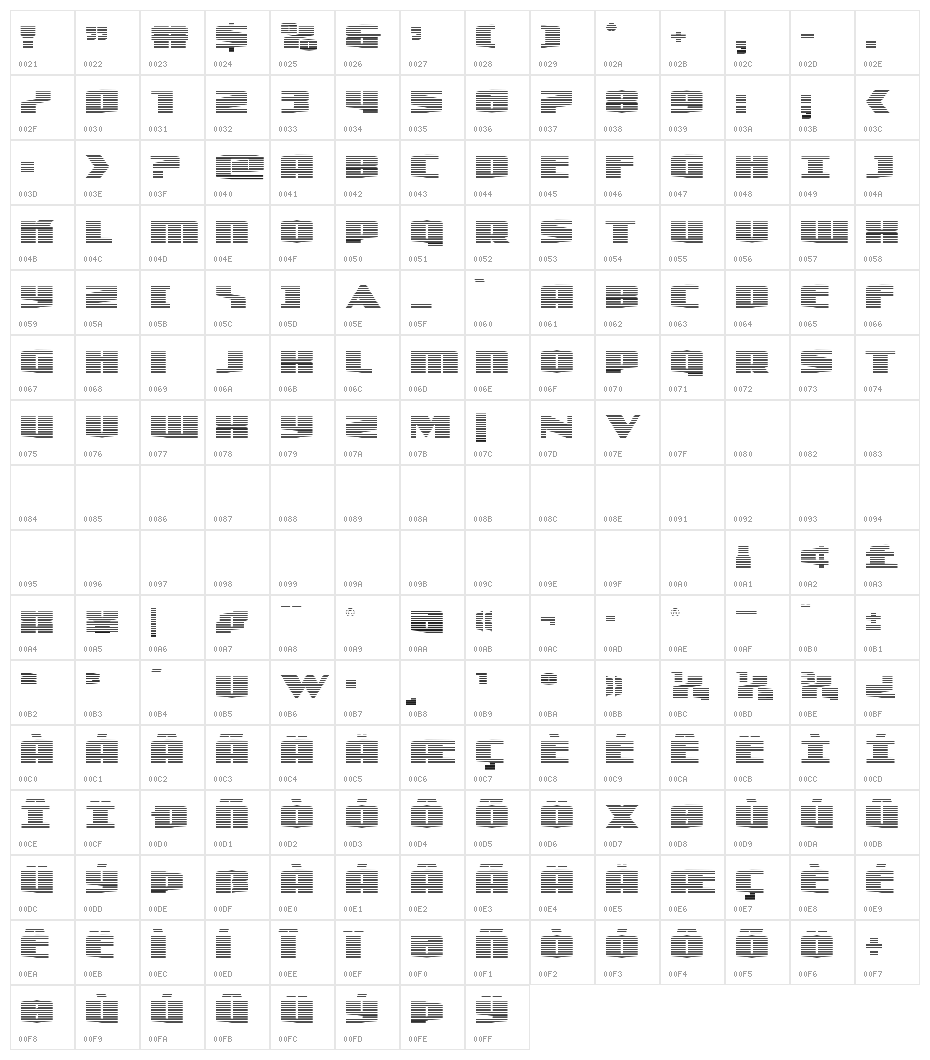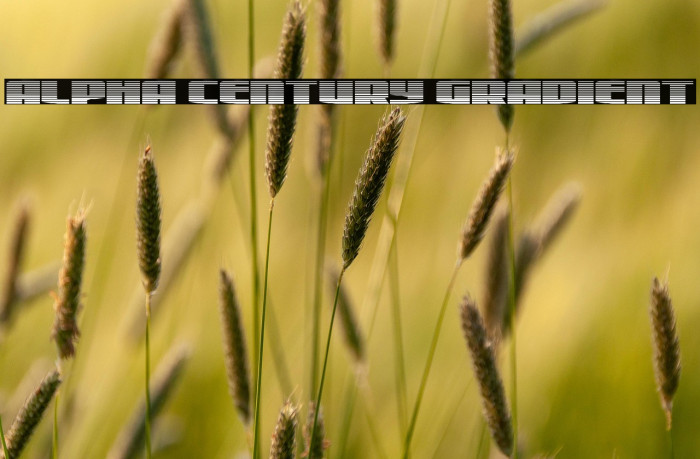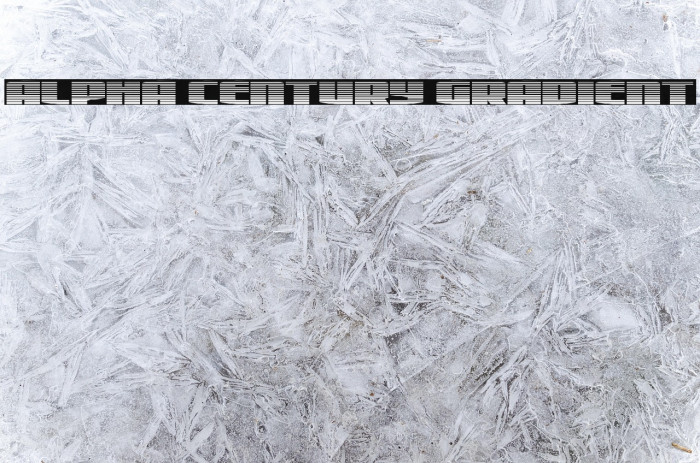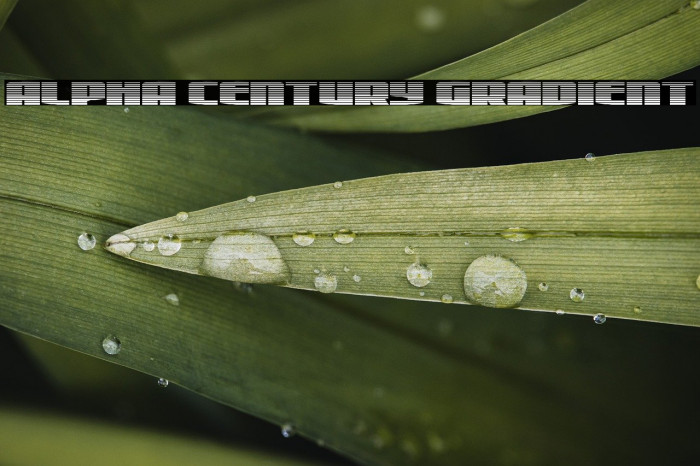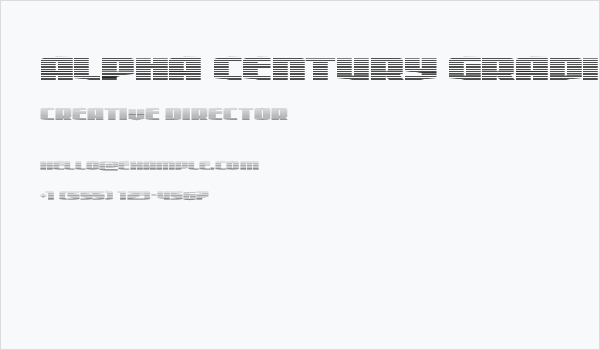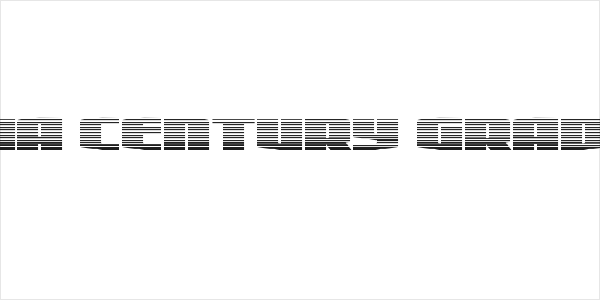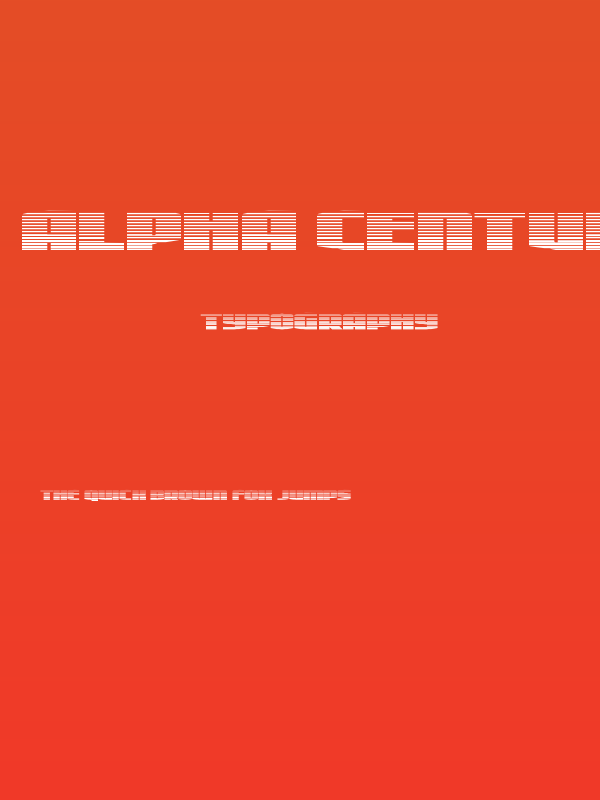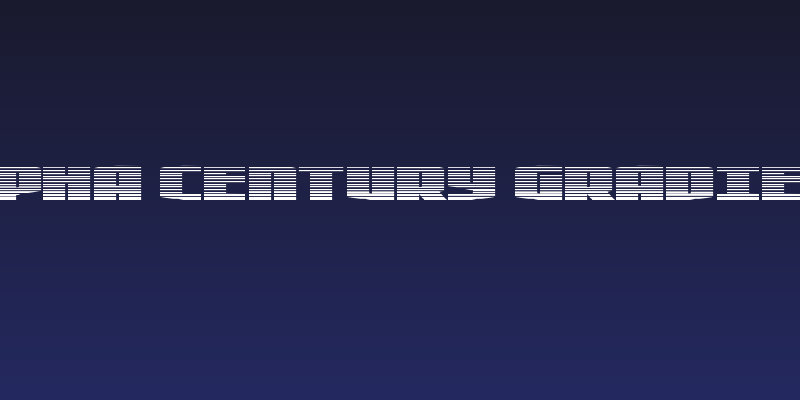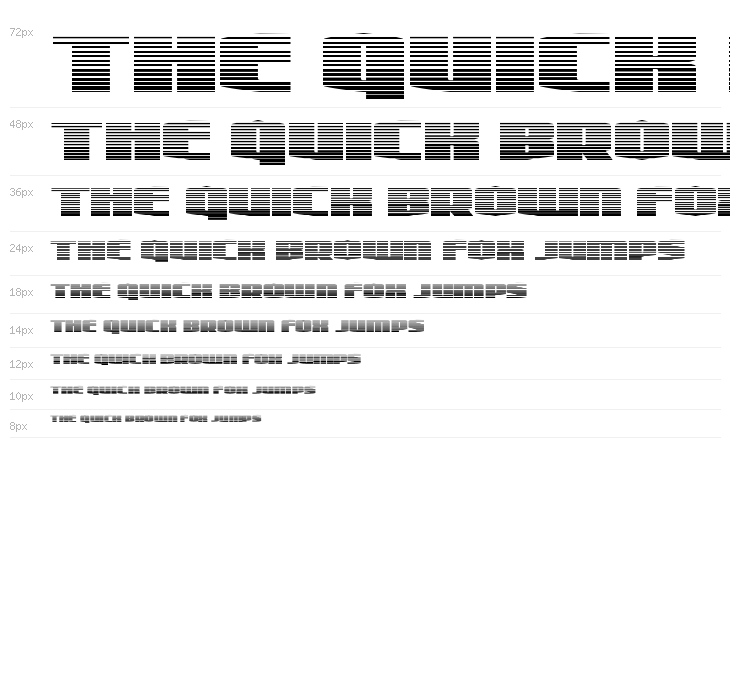
Alpha Century Gradient Font
Alpha Century Gradient Description
This font features a futuristic and digital aesthetic with a unique gradient effect created by horizontal lines. Each character is composed of multiple parallel lines that give it a sense of movement and modernity. The uppercase and lowercase letters, as well as numbers and special characters, maintain a consistent style that emphasizes a sleek, technological look. The design is bold and eye-catching, making it suitable for projects that require a standout visual element. The font's structure is geometric, with sharp angles and clean lines, contributing to its contemporary appeal.